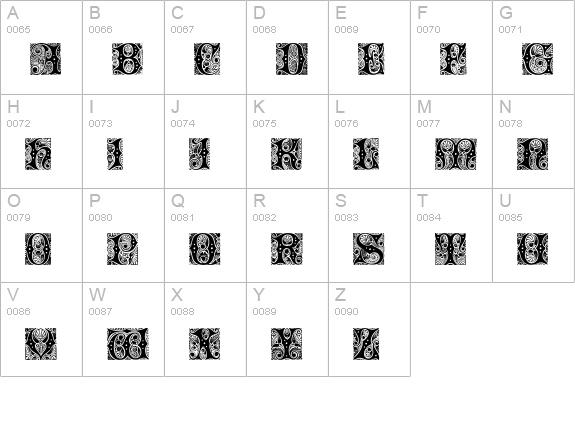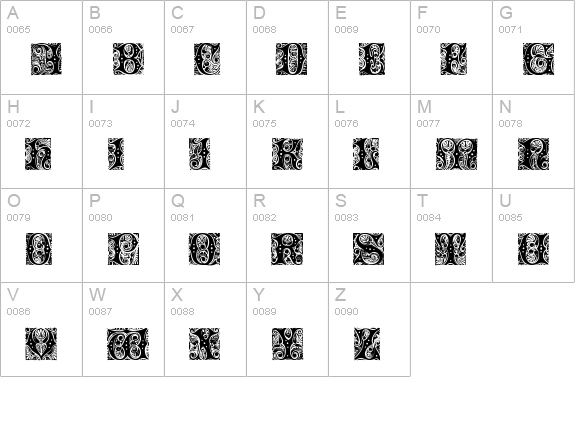
Cheshire Initials Font Details
Cheshire Initials font is a whimsical and elegant typeface that captures the essence of classic calligraphy with a modern twist. Its graceful strokes and intricate details make it perfect for adding a touch of sophistication to any design project. The ornate initials are designed to stand out and make a statement, making them ideal for logos, invitations, and other creative projects. This exquisite font is not only beautiful but also versatile, suitable for a variety of design applications. Whether you're working on a wedding invitation, branding materials, or any other project that requires a touch of elegance, Cheshire Initials font is sure to elevate your design to the next level. Best of all, Cheshire Initials font is free to download at FontsMarket.com. So why wait? Add a touch of sophistication to your designs today with this stunning typeface.